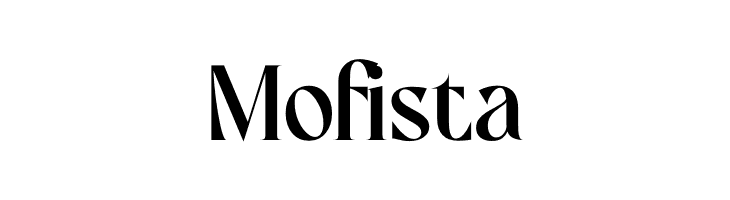
A bold, high-contrast serif font with sharp serifs and dramatic strokes.
A bold, high-contrast serif font with a modern and elegant style.
A bold, serif font with strong strokes and a classic yet modern aesthetic.